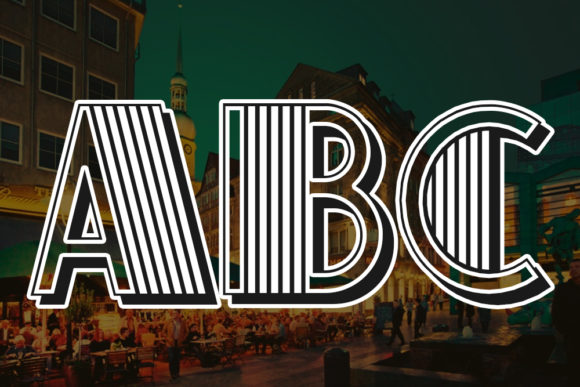
Introduction to Schaeffer Font Font
Fonts play a crucial role in design, and the Schaeffer Font font is a typeface that brings both character and versatility to any project. Whether you’re working on a branding project, a website, or a print design, the Schaeffer Font font offers a unique style that can elevate your work.
The Schaeffer is an awesome retro font with a slight 3D feel.
It comes in a regular and italic variant, which will look awesome on any poster, flyer or print .
Key Features of Schaeffer Font Font
Why Choose Schaeffer Font Font?
The Schaeffer Font font is more than just a typeface – it’s a design tool that helps you communicate your message with style and clarity. Its unique character set and versatile design make it suitable for a wide range of applications, from elegant invitations to bold headlines.
With its carefully crafted letterforms and balanced proportions, the Schaeffer Font font ensures readability and visual appeal across all mediums.
What makes Schaeffer Font font special?
The Schaeffer Font font stands out with its unique design, exceptional readability, and versatility across various design applications.